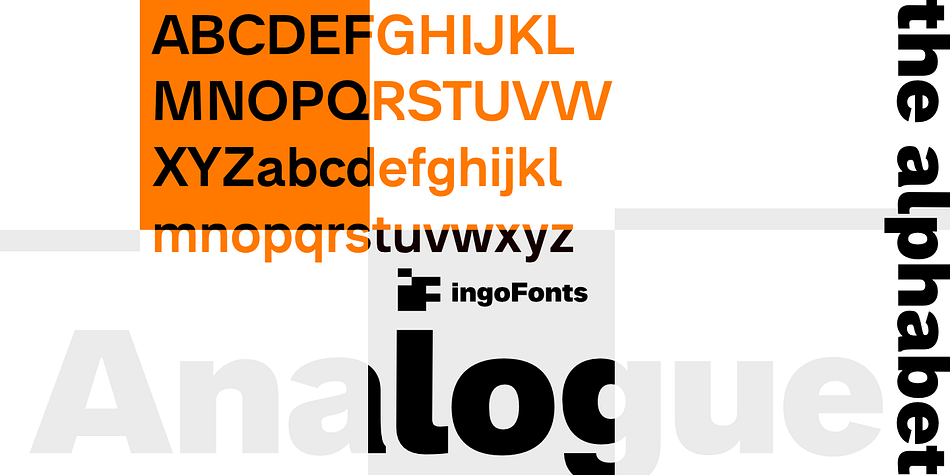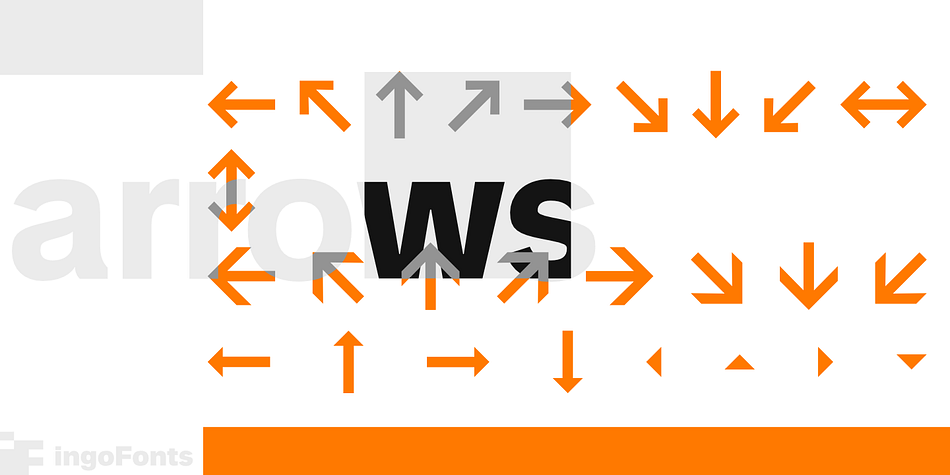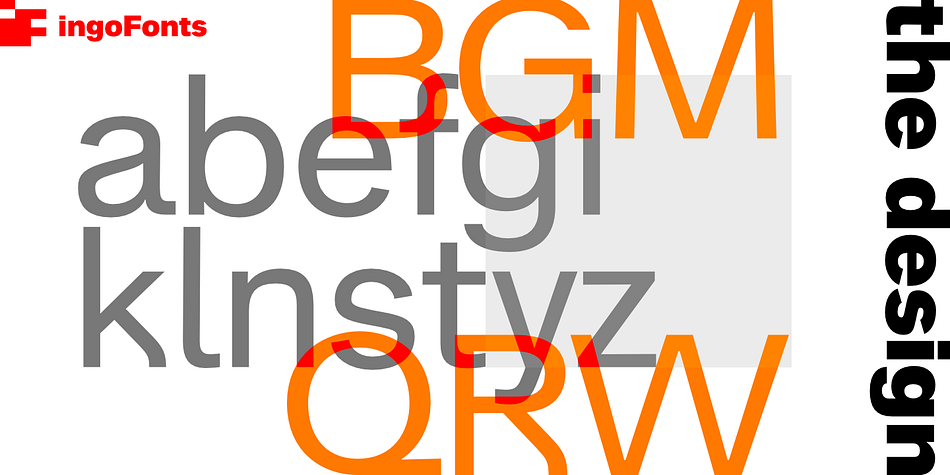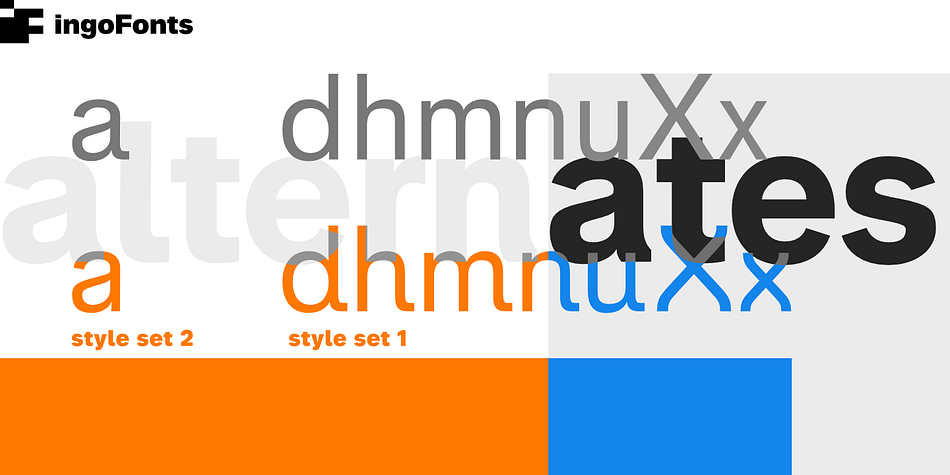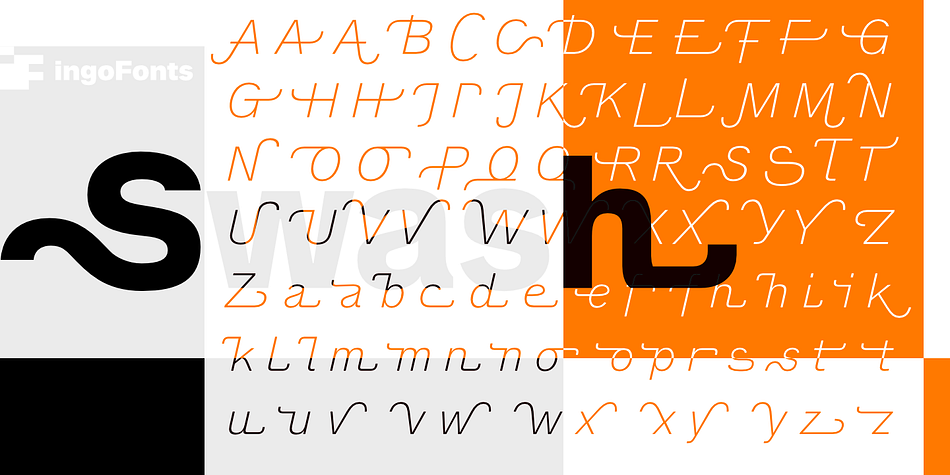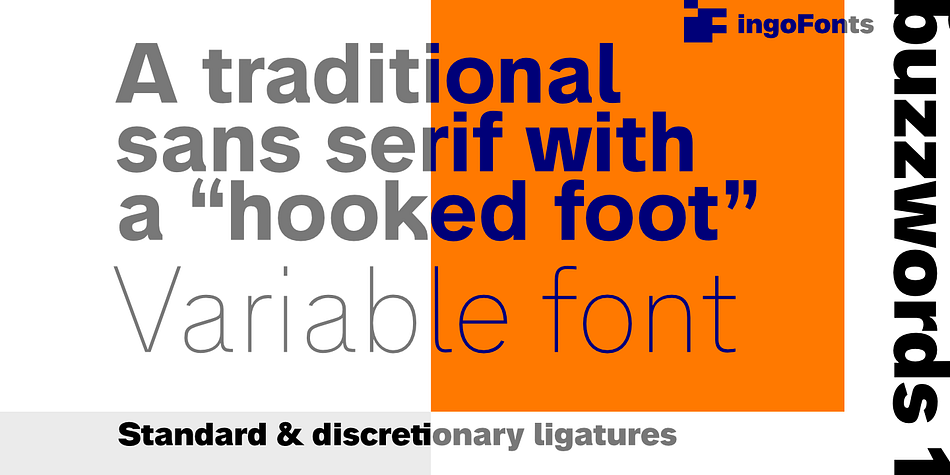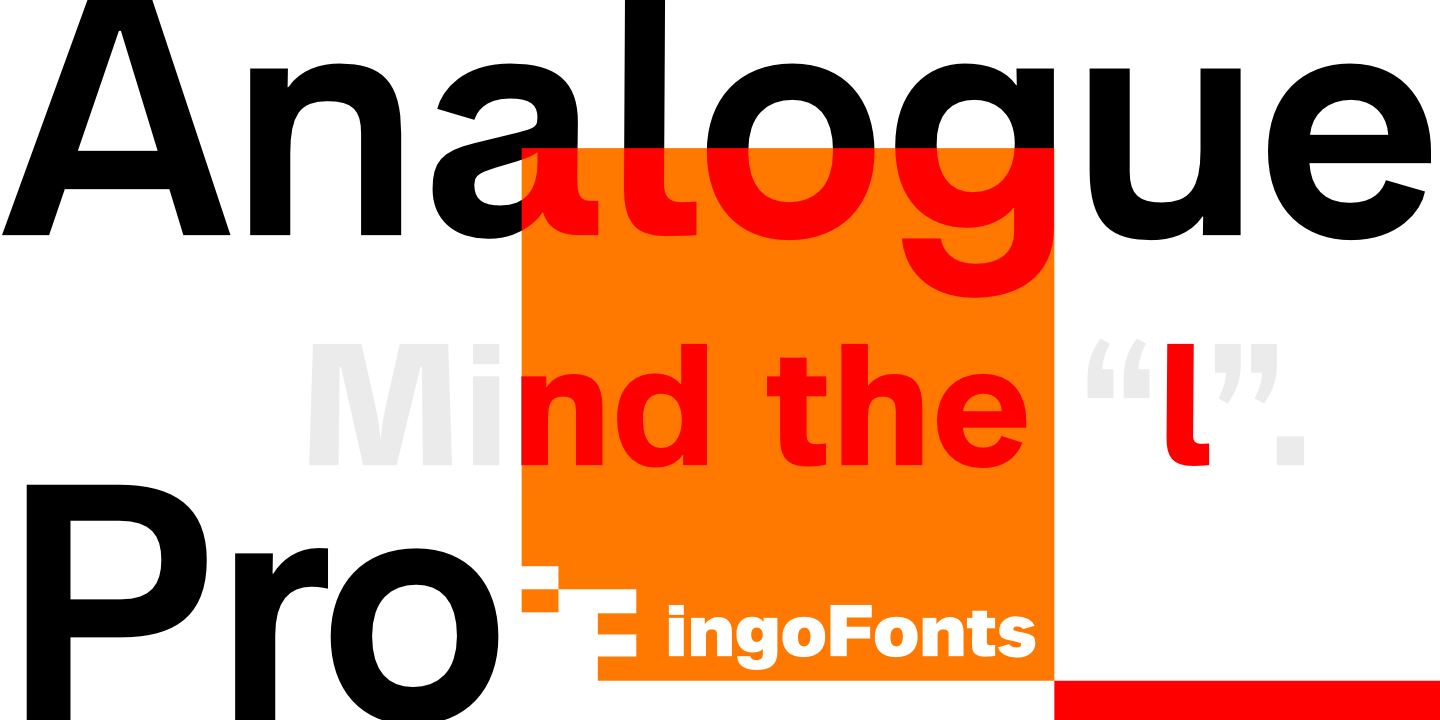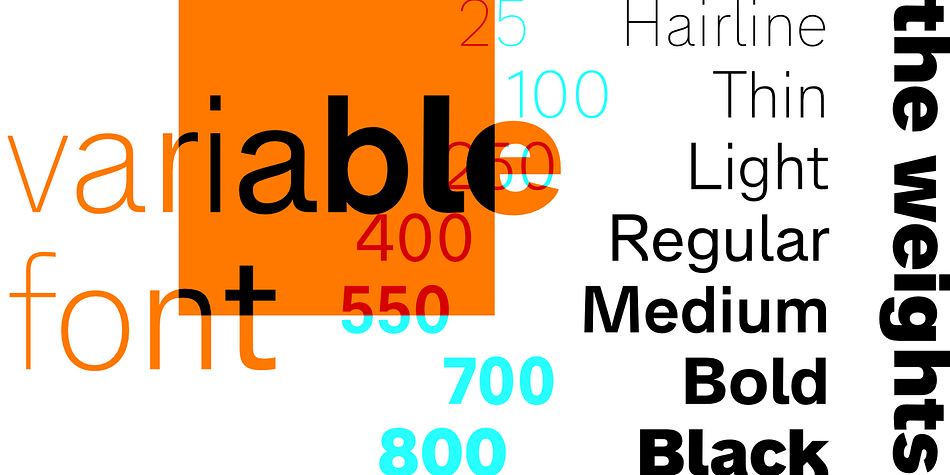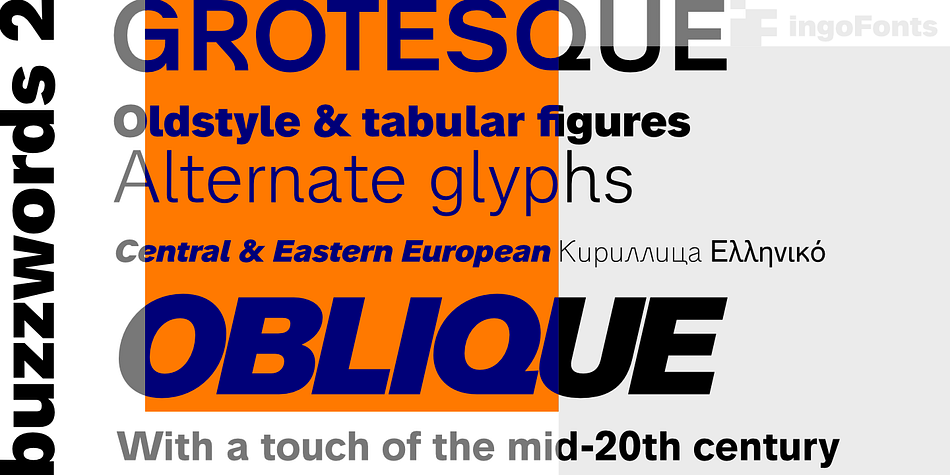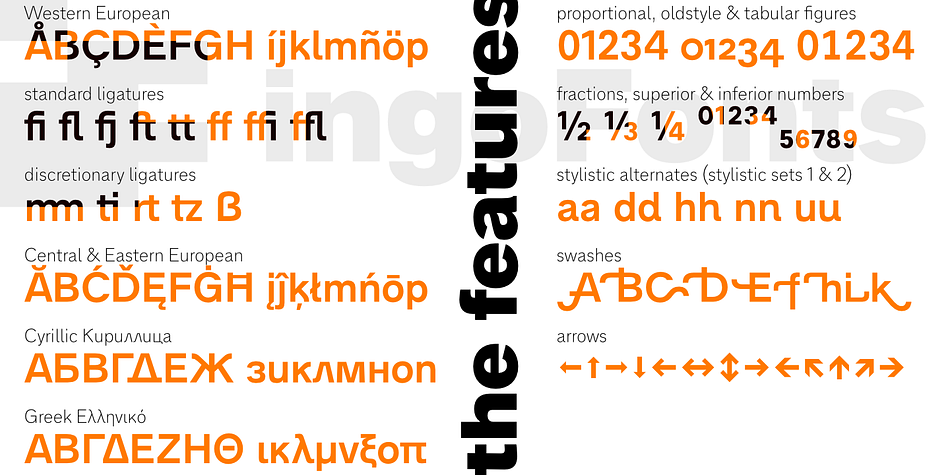
Designed by Ingo Zimmerman, Analogue Pro is a sans serif font family. This typeface has twelve styles and was published by ingoFonts.
A traditional sans serif – functional but friendly, and very classic – also, very legible
• very traditional forms • strongly slanted italic • consistant proportions • extraordinary double letters (ligatures) • different numerals • lower case l with a hooked “foot”
Believe it or not, there are hardly any sans serif fonts in which the lower case letter l also has the hooked form of an l. Instead, we readers have to constantly distinguish whether we are seeing an uppercase I or a lower case l – just take a look at the word “Illinois”…
The ingoFont Analogue was developed for exactly this reason. The intent: To create a pretty much »ordinary«, even classical font with its most striking characteristic being the inclusion of the “crooked l.”
The slanted versions – it isn’t truly a real cursive font – are noticeably stronger with 13° than the italics in comparable fonts.